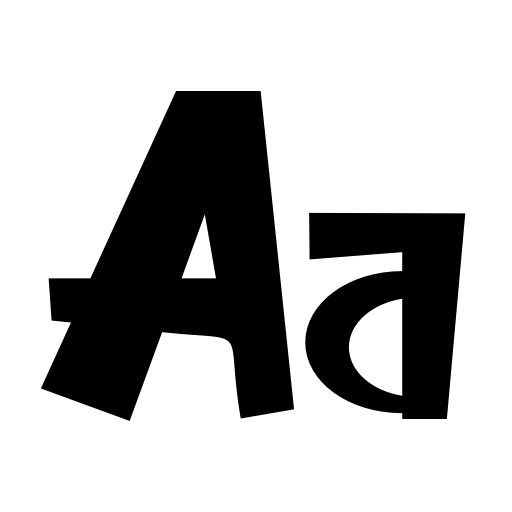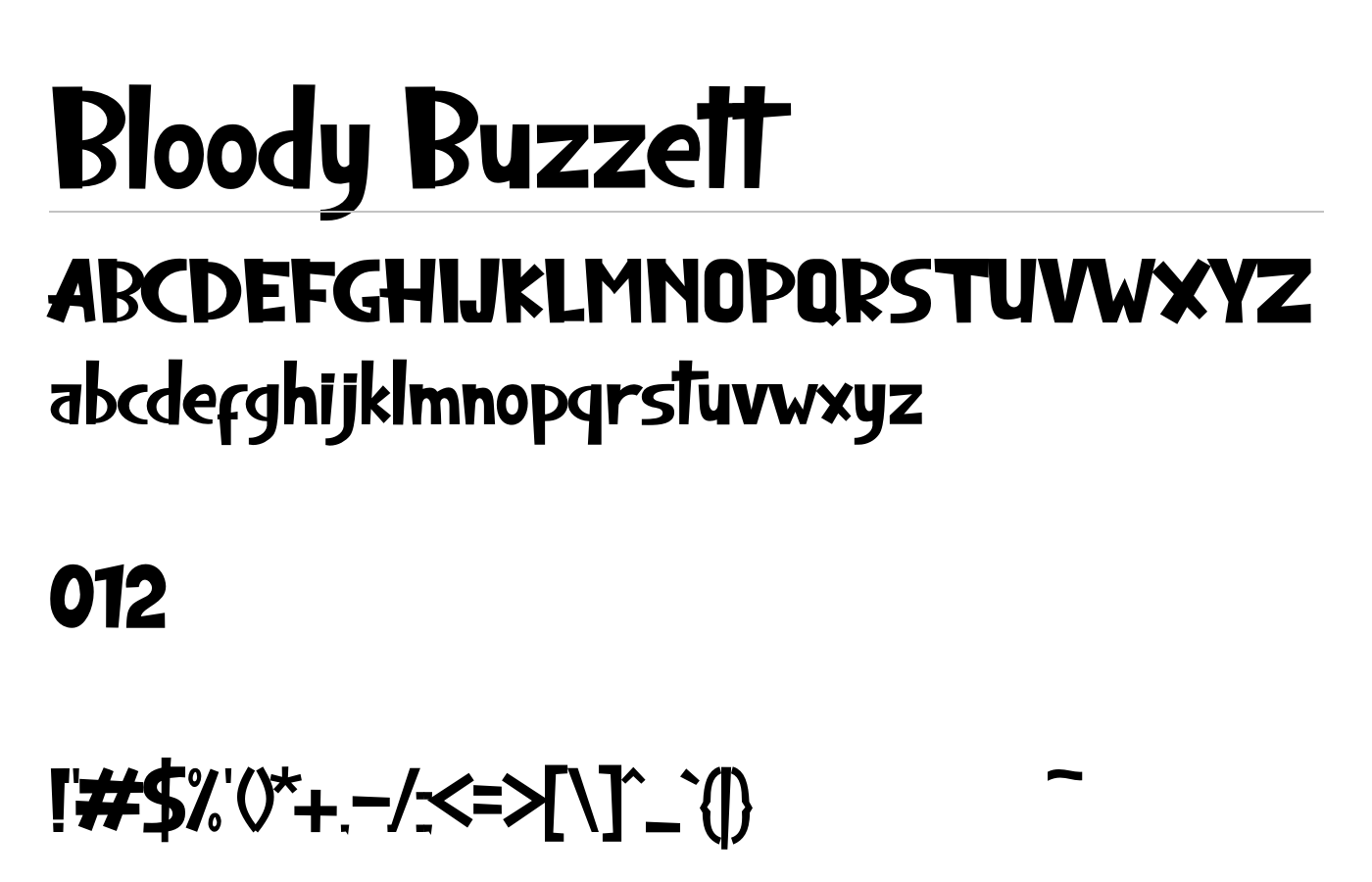
Bloody Buzzett is a playful, bold sans serif font with a quirky, hand-drawn vibe that features irregular shapes and varied stroke widths. Its tall x-height and tight spacing make it eye-catching and energetic, perfect for creative headlines, posters, and branding that wants to convey fun and uniqueness. This font works best in informal, artistic contexts where a spirited and unconventional look is desired.
Bloody Buzzett Font
About Bloody Buzzett Font
| Font family | Bloody Buzzett Font |
| Designer | Sya'dan Ismail Rosyad |